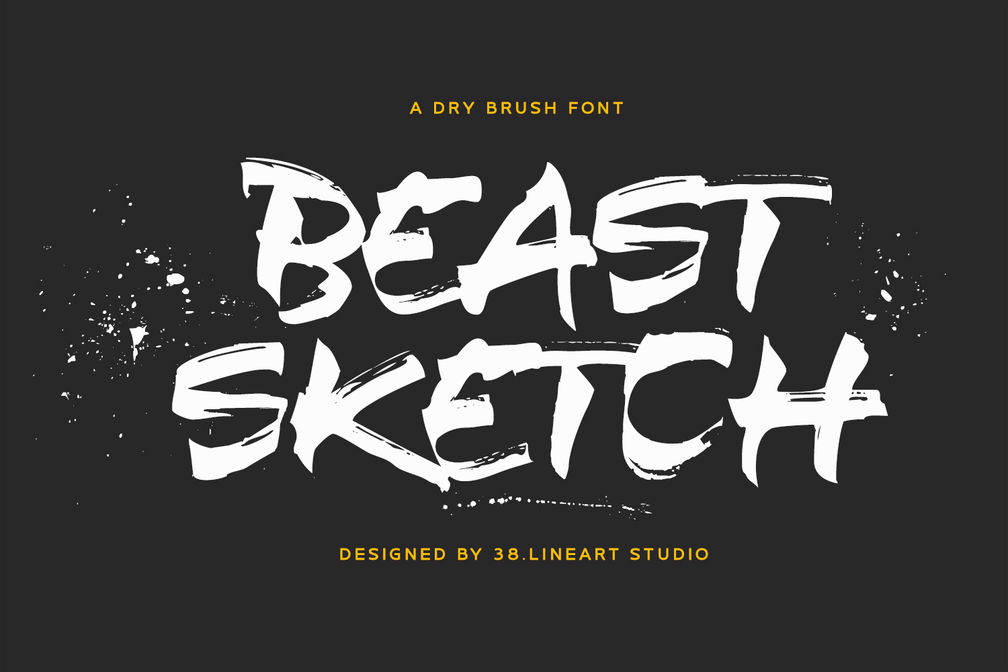
“Beast Sketch” is an extraordinary handwritten font created with bold, untamed strokes using ink and a bamboo pen. It boasts a masculine aesthetic, an organic, natural feel, and extensive Latin character support. Perfect for book titles, magazine covers, logos, and more, it adds a raw, authentic, and compelling vibe to your projects.